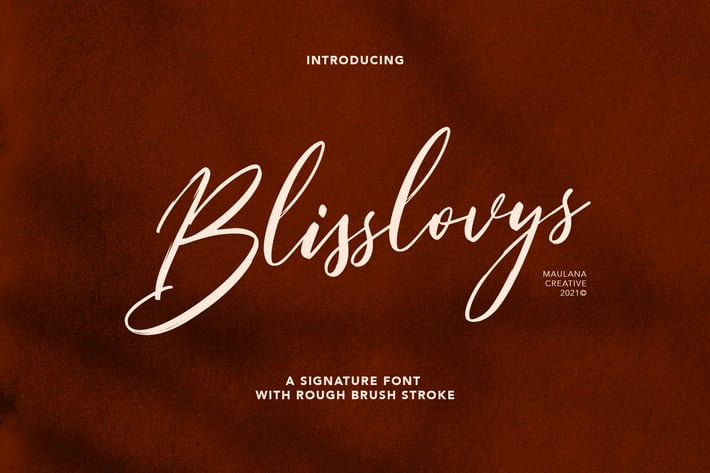
Blisslovys Signature Brush Font
Blisslovys is a signature script font With rough brush stroke and fun character. It has Opentype features of ligatures and lowercase alternates, To give you an extra creative work. Blisslovys signature brush script font support multilingual more than 100+ language. This font is good for logo design, Social media, Movie Titles, Books Titles, a short text even a long text letter and good for your secondary text font with sans or serif. Make a stunning work with Blisslovys signature brush font.